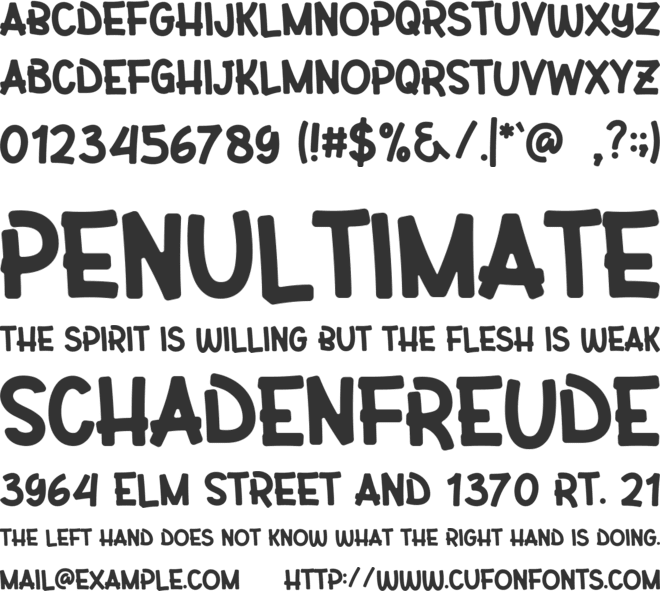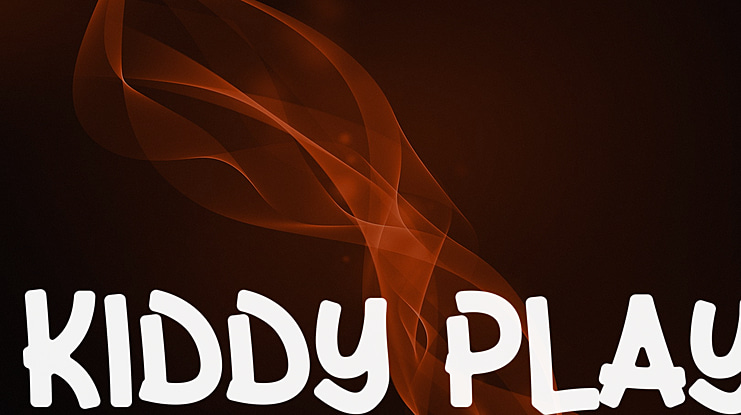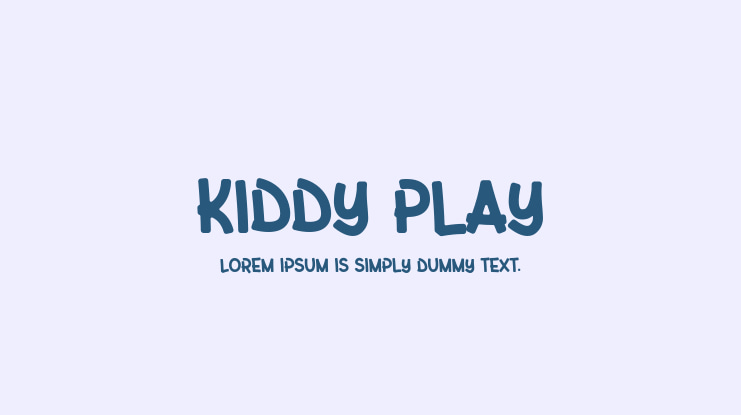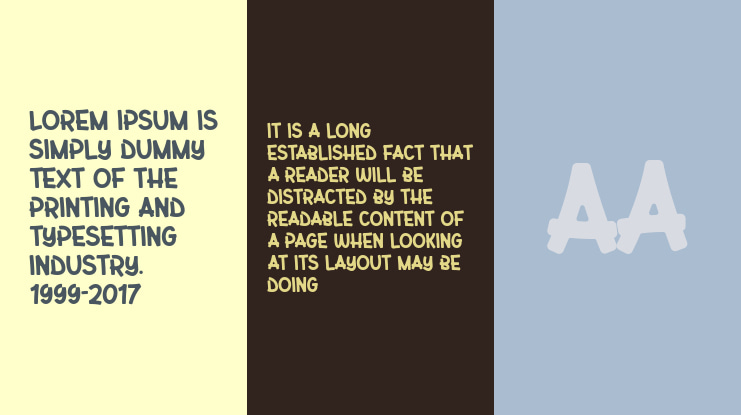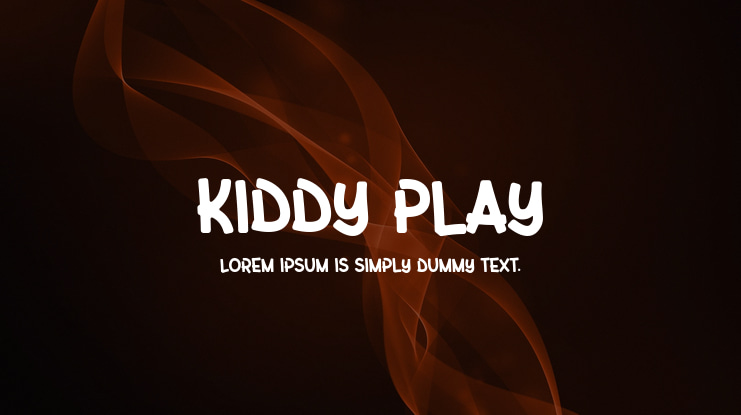
Kiddy Play Font
Having a blocky shape with rounder corner and fun baseline, will make Kiddy Play emphasize the happiness on every word you put on your project. Suit perfectly for Online Games, poster, movie title, fast food menu, magazine, youtube covers, youtube thumbnails, social media page covers and so on…A commercial license is available at justtheskills.com/product/kiddy-play/ (https://justtheskills.com/product/kiddy-play/)Happy designing.